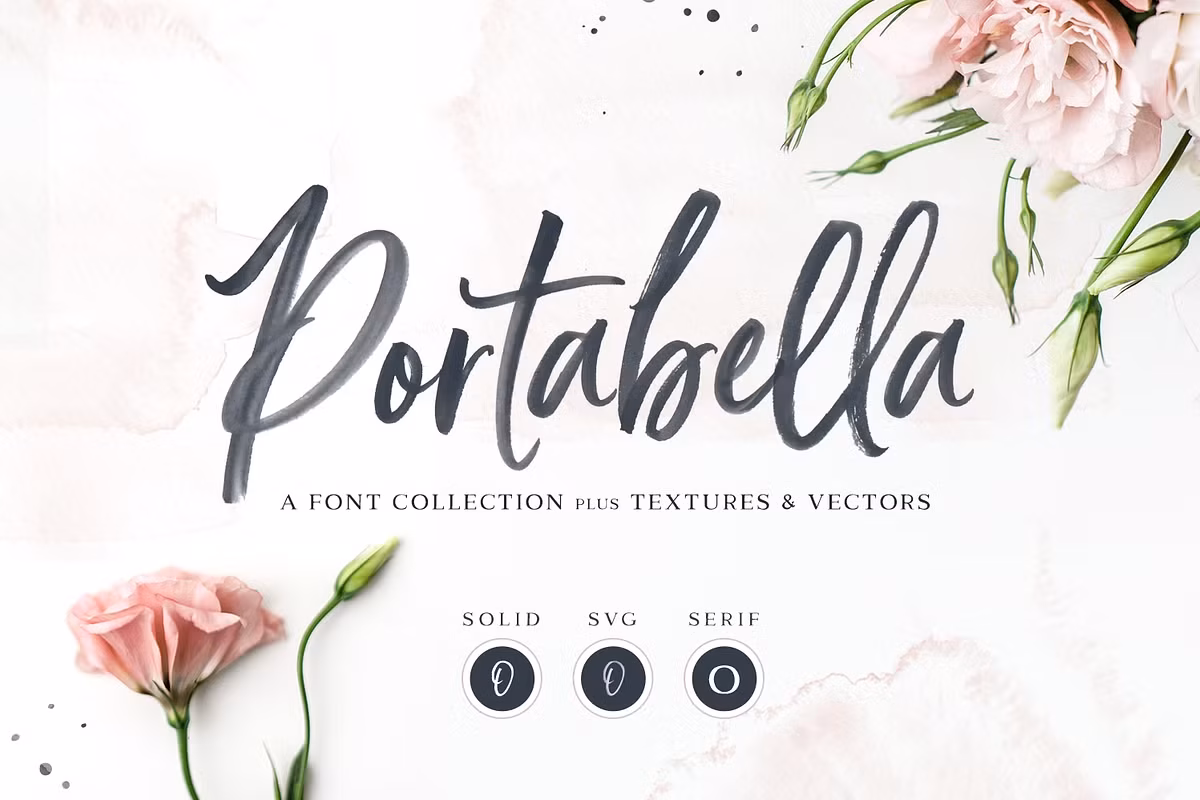
Portabella Font Collection Free Download
Unleash your creative potential with the Portabella Font Collection Free Download. This diverse collection includes a variety of styles, from elegant serifs to modern sans-serifs and artistic display fonts, giving you endless possibilities for branding, logos, packaging, editorial design, and more.
The Portabella collection offers versatile fonts suitable for both professional and creative projects, with each typeface featuring clean lines, balanced proportions, and distinctive character. It includes uppercase and lowercase letters, numerals, punctuation, multilingual support, and stylistic alternates—perfect for testing various design ideas.